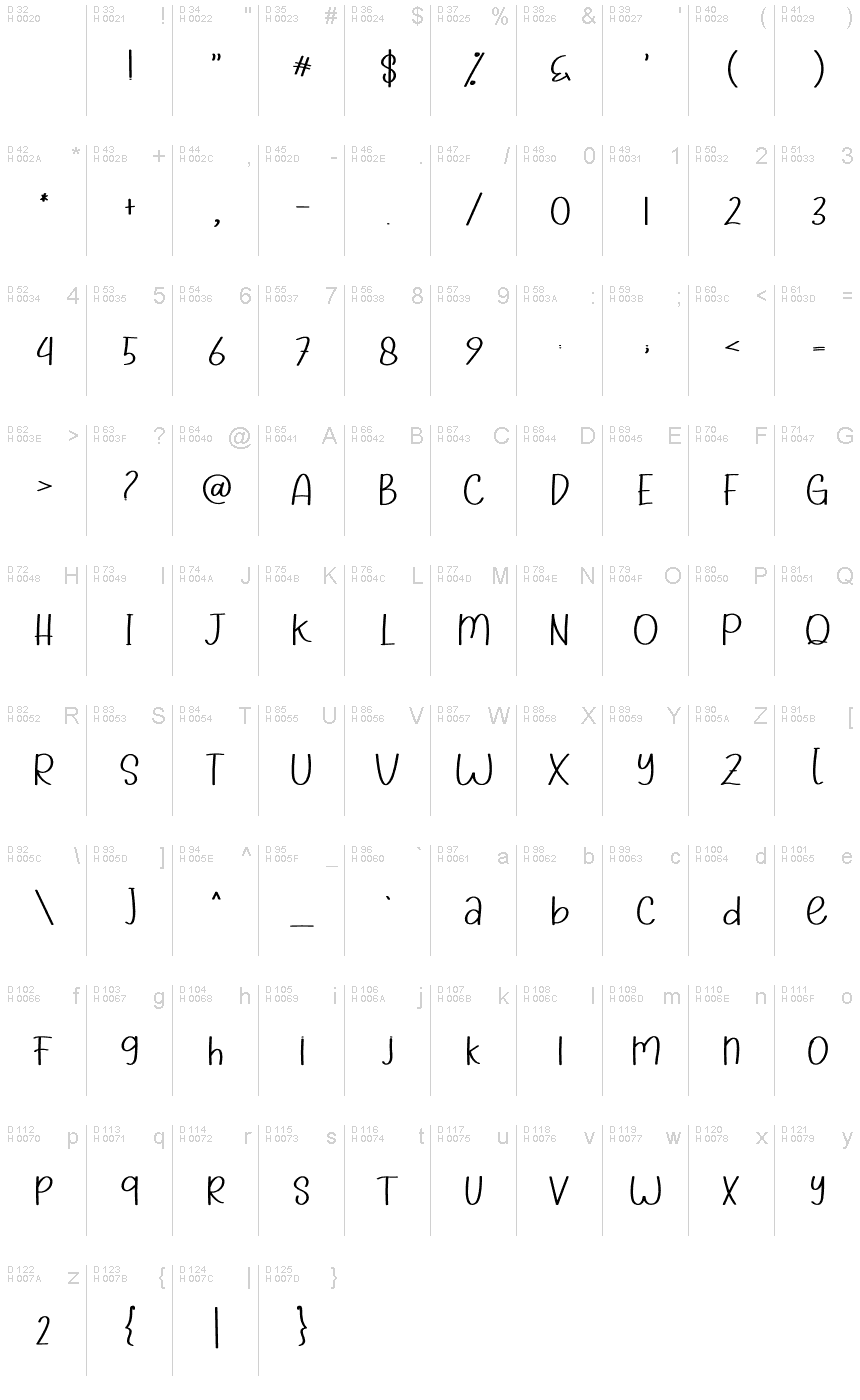
Children Girls
Children Girls, a handwritten font crafted by Etik Fatimah, exudes a playful yet refined charm. Its semi-light weight adds a delicate touch, while the semi-condensed width ensures readability without compromising style. The font's fluidity mirrors the natural variations of handwriting, making it instantly warm and inviting.
The subtle imperfections in Children Girls' characters lend authenticity to its design, giving projects an intimate and handcrafted feel. This font finds its place in designs aiming for a personal touch, from heartwarming invitations to engaging marketing materials or whimsical book covers.
Thanks to its versatile aesthetic that balances casual flair with elegance, Children Girls is well-suited for creative endeavors that call for a hint of individuality and approachability. Whether it's for branding, product packaging, or editorial work, this font is poised to bring your projects to life with its unique blend of simplicity and personality.